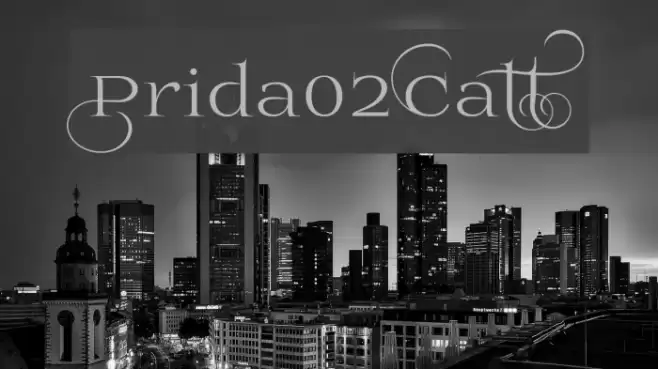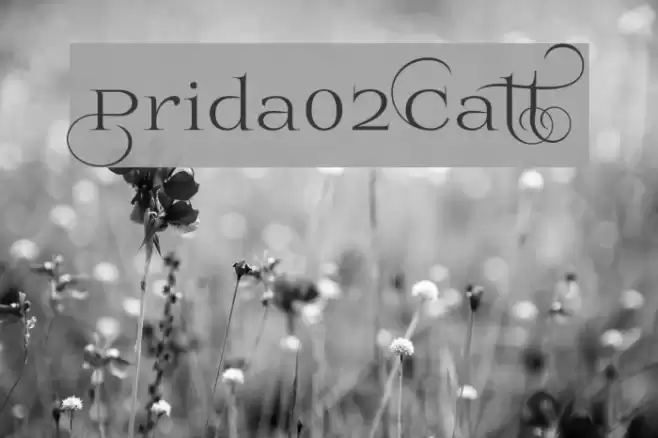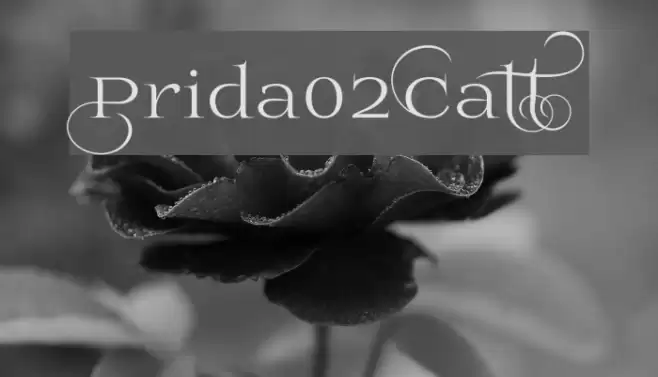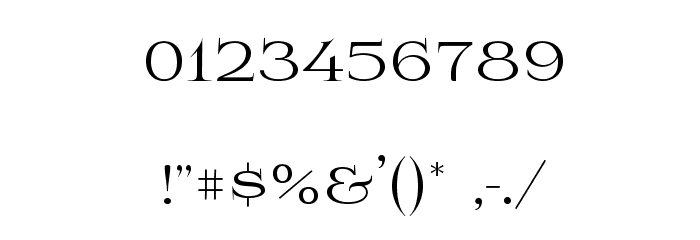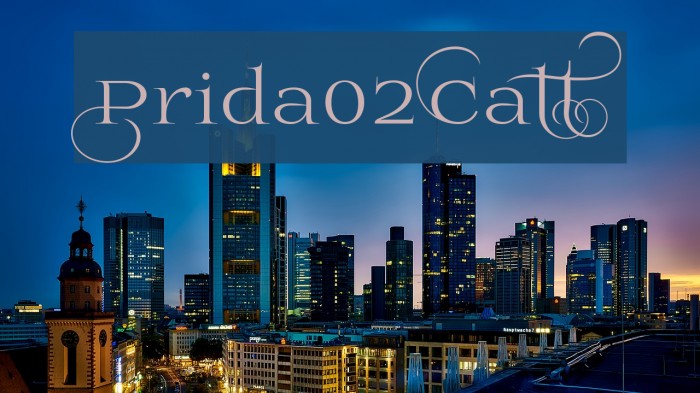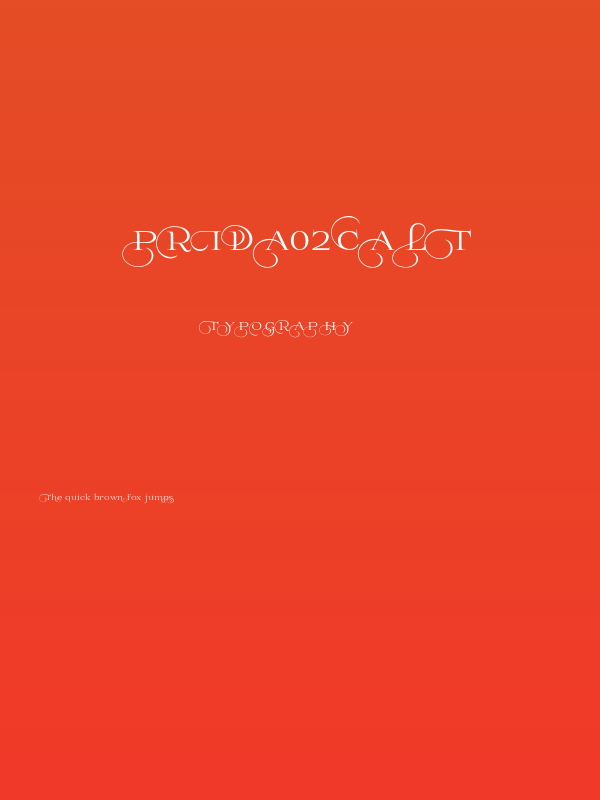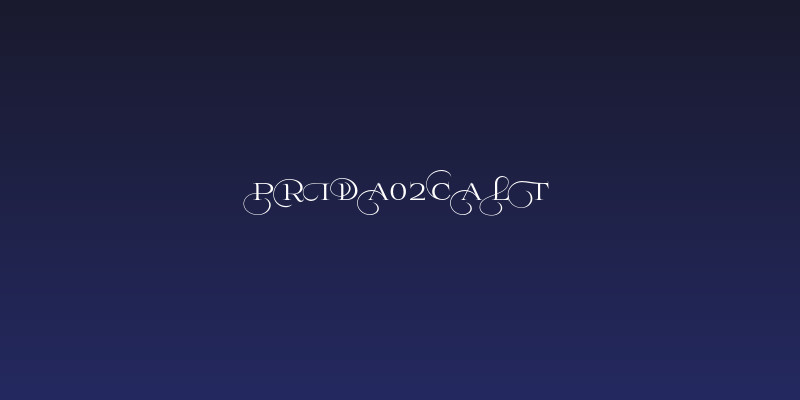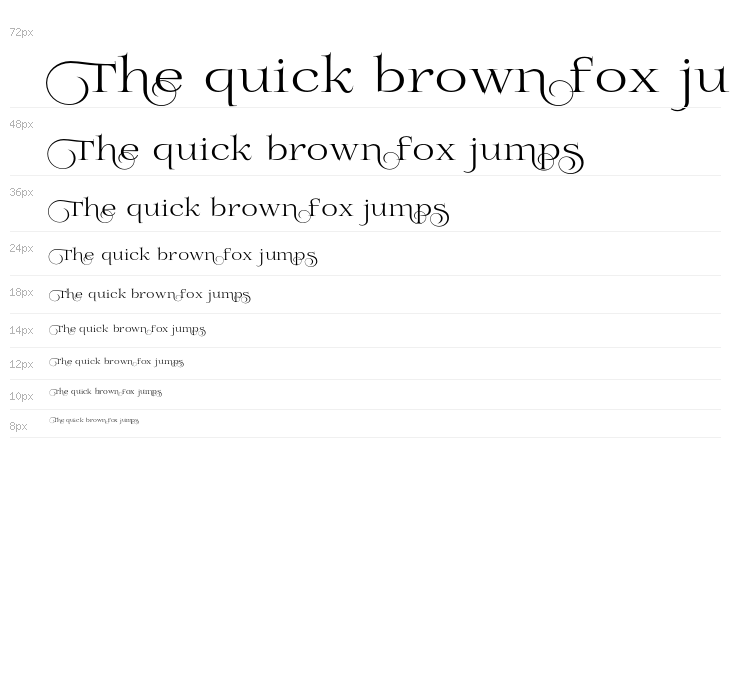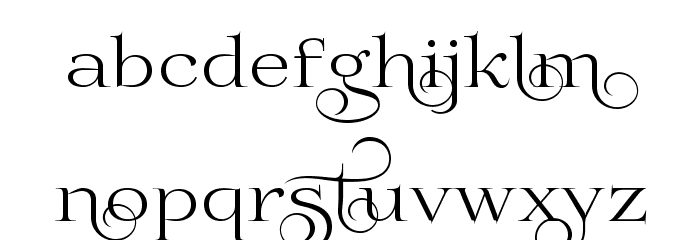
Prida02Calt Font
Prida02Calt Description
This font is an elegant and decorative typeface characterized by its intricate swirls and flourishes. The uppercase letters feature elaborate loops and extensions that give a sense of sophistication and grandeur. The lowercase letters maintain a similar style, with some characters having unique, ornate tails and ascenders. The numerals are consistent with the overall decorative theme, adding a touch of elegance to any numerical display. Special characters are also designed with the same attention to detail, making this font suitable for artistic and formal applications.
An elegant, decorative font with intricate swirls and flourishes from Uncategorized fonts.
- Proposed Projects: Ideal for wedding invitations, luxury branding, high-end product packaging, and decorative posters.
- Use Case: Logos, Headlines, Invitations